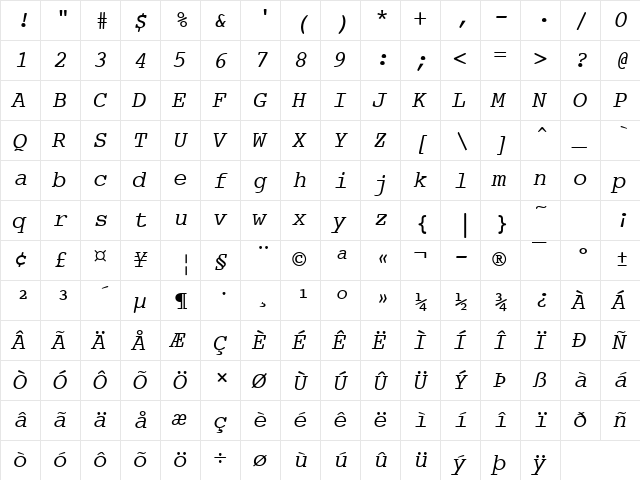
Journal Italic Font Preview
Journal Italic
Journal Italic Font Details
Design Context for Journal Typeface
Journal is a composed and adaptable typeface that performs quietly and consistently across a wide range of design contexts. The dynamic lean of this cut emphasises speed and emphasis in any layout.
Pro Tip: Try Journal for annotation and caption copy alongside an upright companion — the contrast in angle creates a dynamic but ordered typographic system.